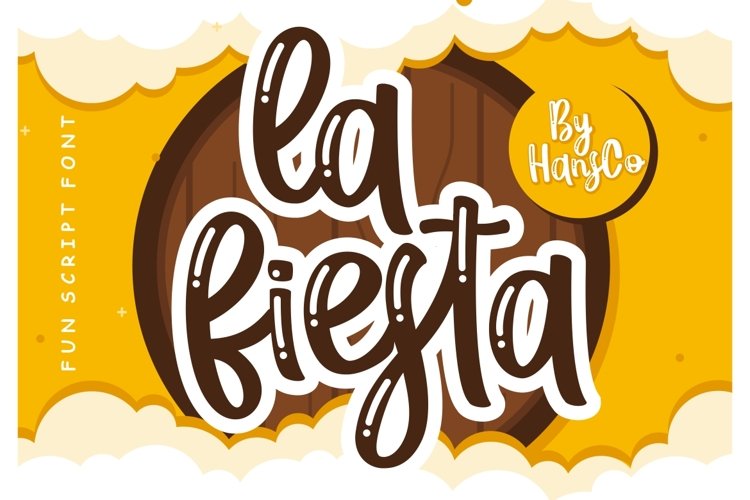
la fiesta is a sweet and unique handwritten font that is perfect for so many design projects! the white outline not include, but you can make it with contour efffect in coreldraw or shadow in adobephotoshop. It is extra smooth for Cricut and Silhouette crafters, making it a great font for vinyl projects!